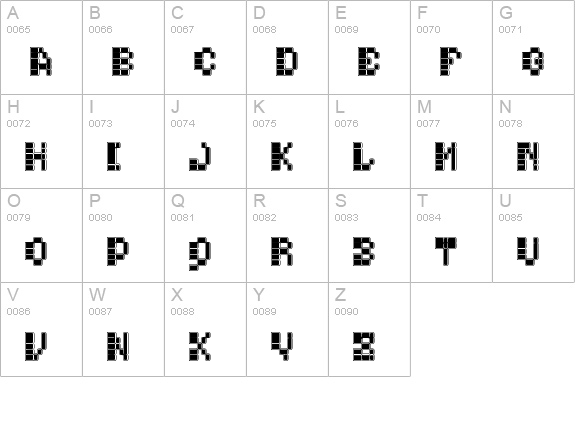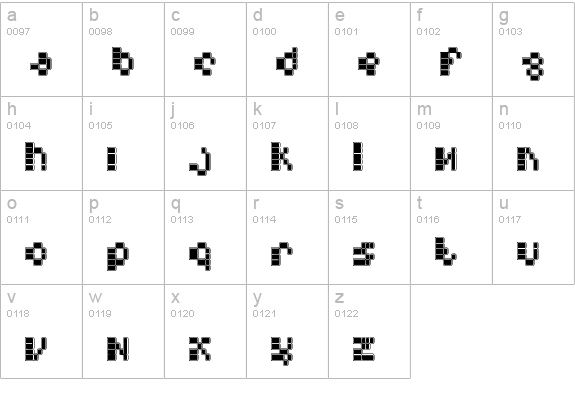
HypercellMembrane Font Details
Introducing HypercellMembrane font - a futuristic and dynamic typeface that embodies innovation and creativity. Its sleek and avant-garde design makes it perfect for projects that aim to stand out and make a bold statement. The sharp angles and intricate details of each character give HypercellMembrane a unique and captivating look. What sets HypercellMembrane font apart is not only its striking appearance but also its versatility. Whether you're working on a tech-related project, a sci-fi inspired design, or simply looking to add a modern touch to your work, this font is sure to elevate your creations to the next level. But the best part? HypercellMembrane is completely free to download at FontsMarket.com. Yes, you read that right - you can enhance your designs with this cutting-edge font without having to spend a penny. So why wait? Give your projects a futuristic edge with HypercellMembrane font today.